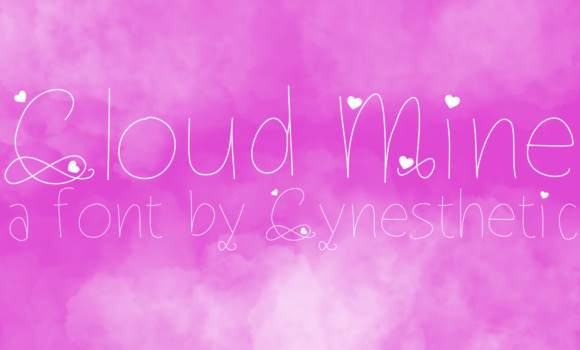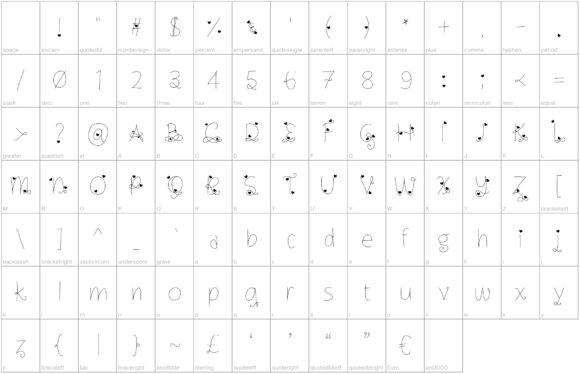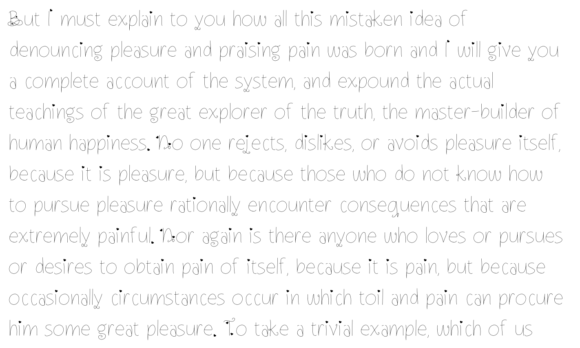
Cloud Mine Font
About Cloud Mine Font
Cloud Mine delivers a thin, cute and romantic handwritten font that’s perfect for Valentine’s crafts. Ignite your creativity with the featured cute hearts!